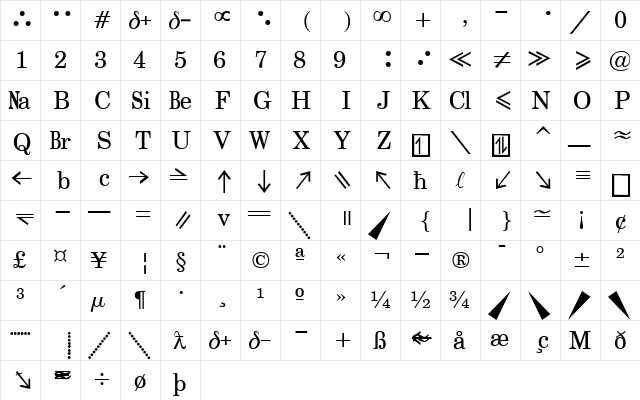
1Lanz Chemistry Regular
Design Context for 1Lanz Chemistry Typeface
1Lanz Chemistry is a composed and adaptable typeface that performs quietly and consistently across a wide range of design contexts.